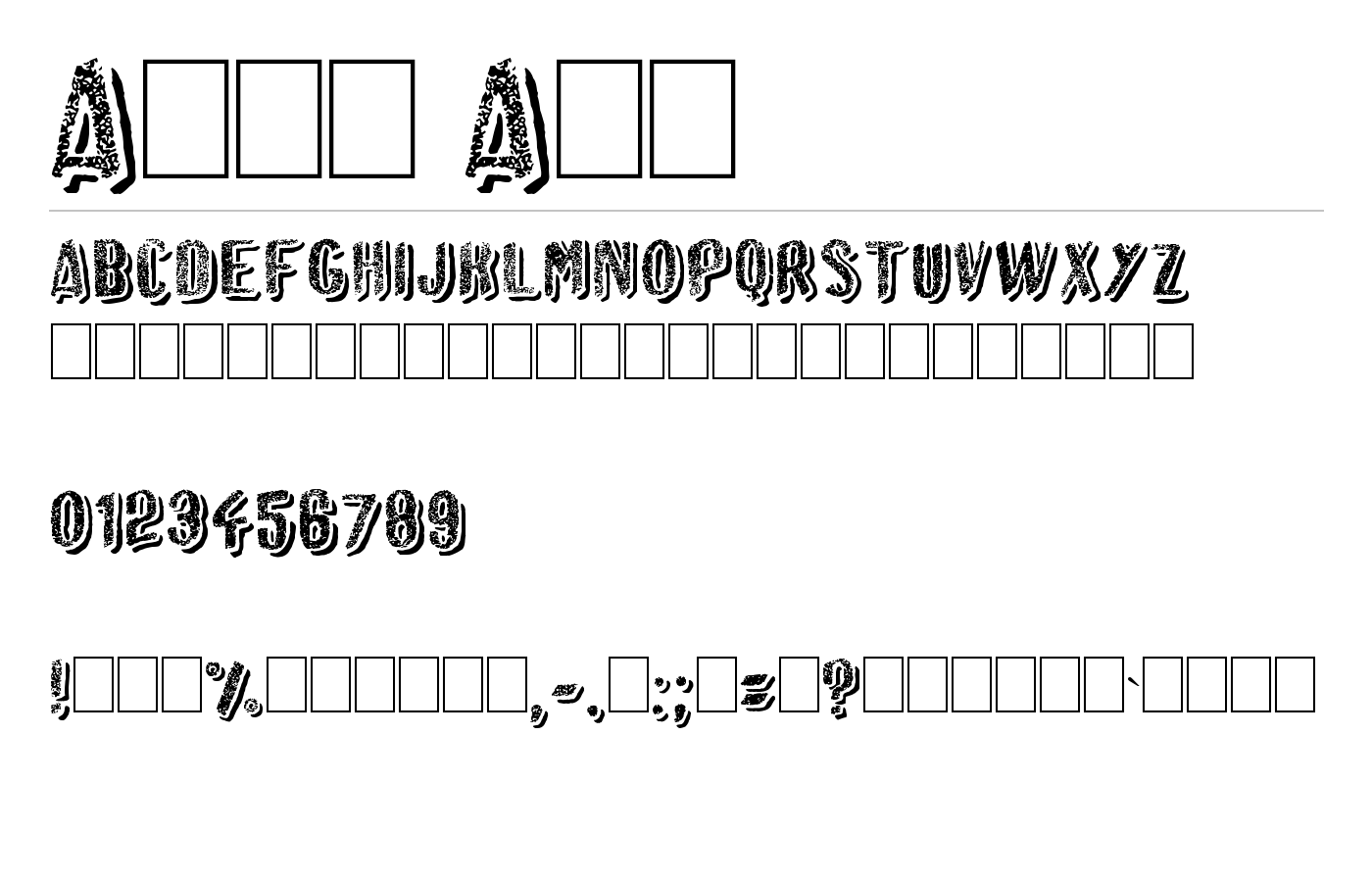
Afro Add is a bold, decorative display font with a textured, distressed look that gives it a raw, edgy personality. Its thick, irregular strokes and playful imperfections make it perfect for creative projects wanting to evoke a vibrant, artistic, and urban vibe. This font works best in headlines, posters, and branding that needs impact and a touch of handcrafted charm.
Afro Add Font
About Afro Add Font